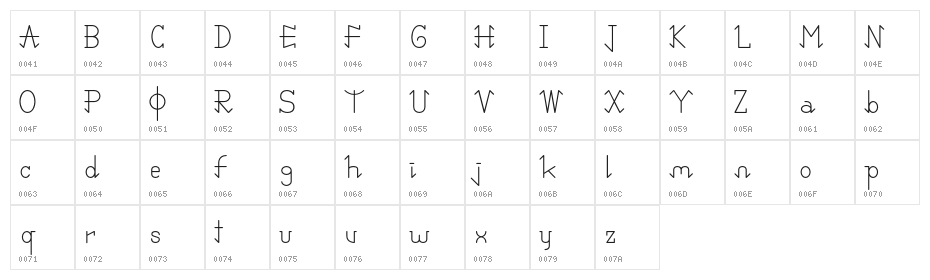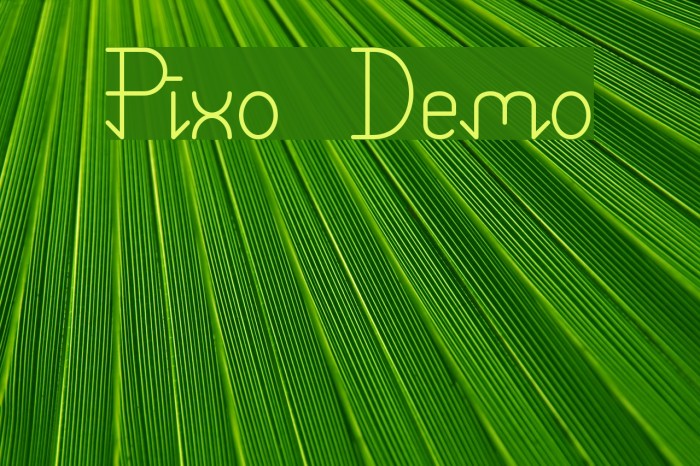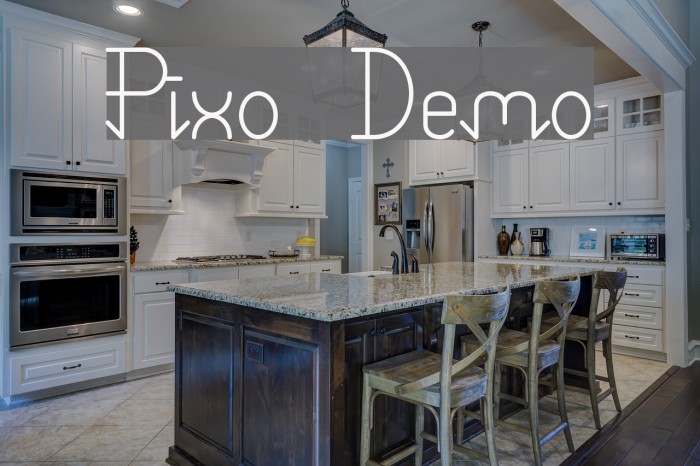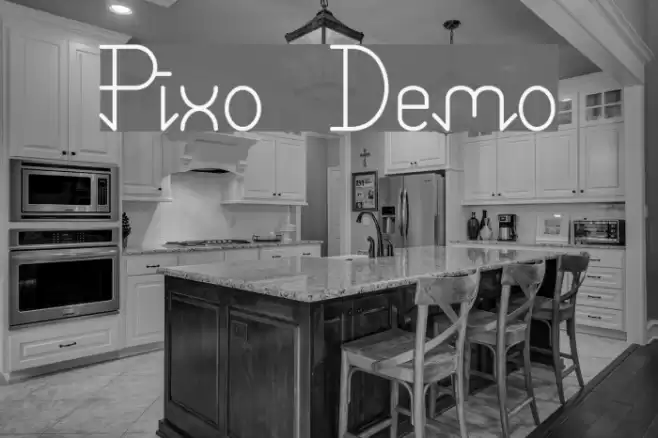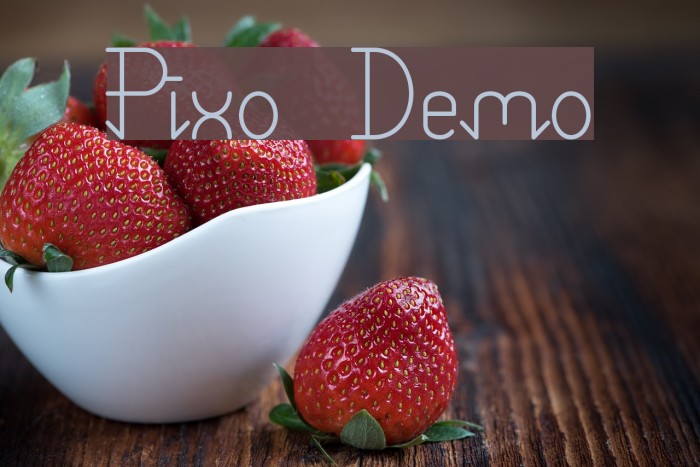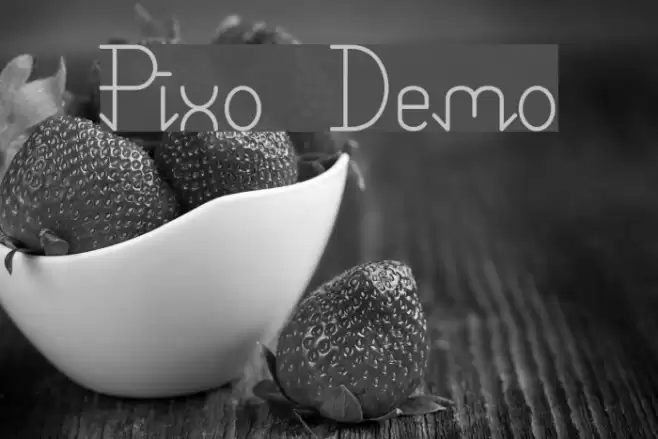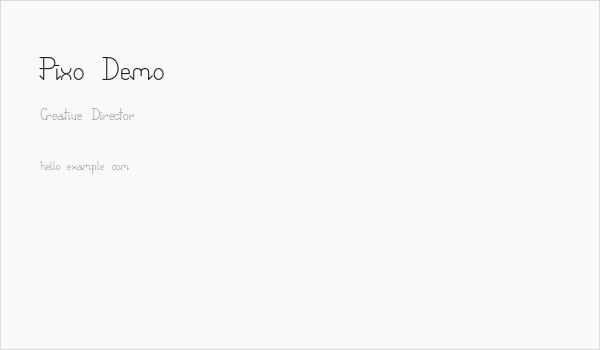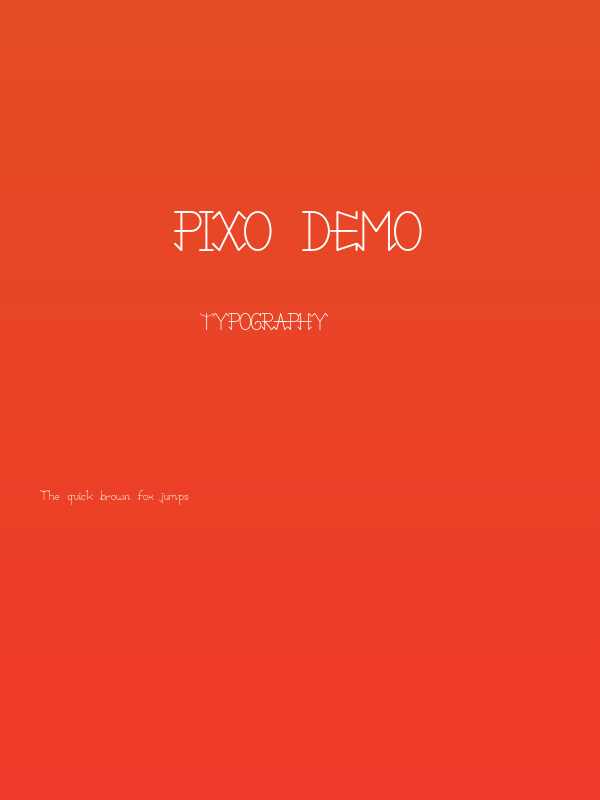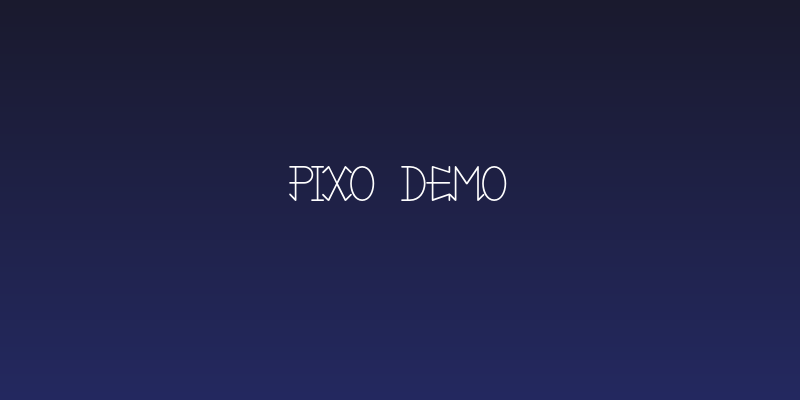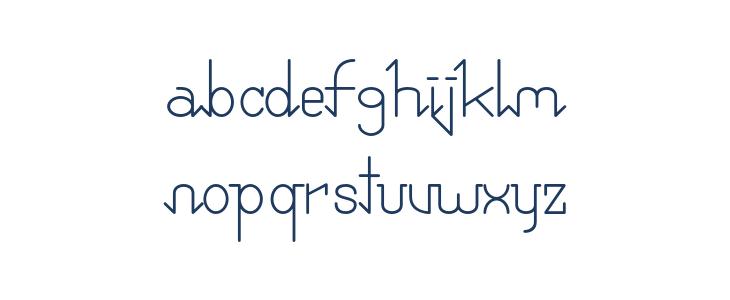
Pixo Demo Font
Pixo Demo Description
This font features a unique and artistic design with angular and geometric elements. The uppercase letters are characterized by sharp angles and intersecting lines, creating a sense of movement and dynamism. The lowercase letters maintain a similar style, with some characters featuring distinctive hooks and curves that add to the overall aesthetic. The font's thin strokes and consistent line weight contribute to a clean and modern appearance. It includes a full set of uppercase and lowercase letters, numbers, and a selection of special characters, making it versatile for various design needs.
| Use Case | Logos, Posters, Album covers |
| Proposed Projects | Ideal for creative projects such as logos, posters, and album covers where a distinctive and modern look is desired. |